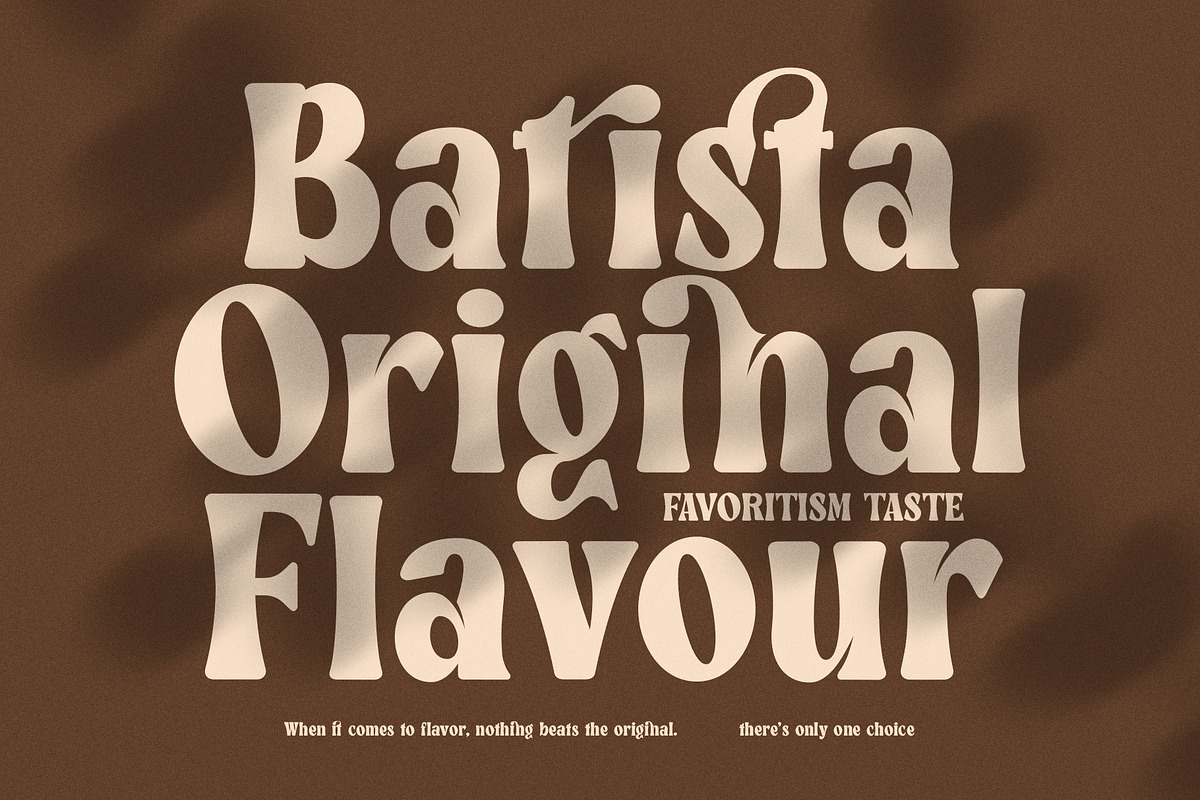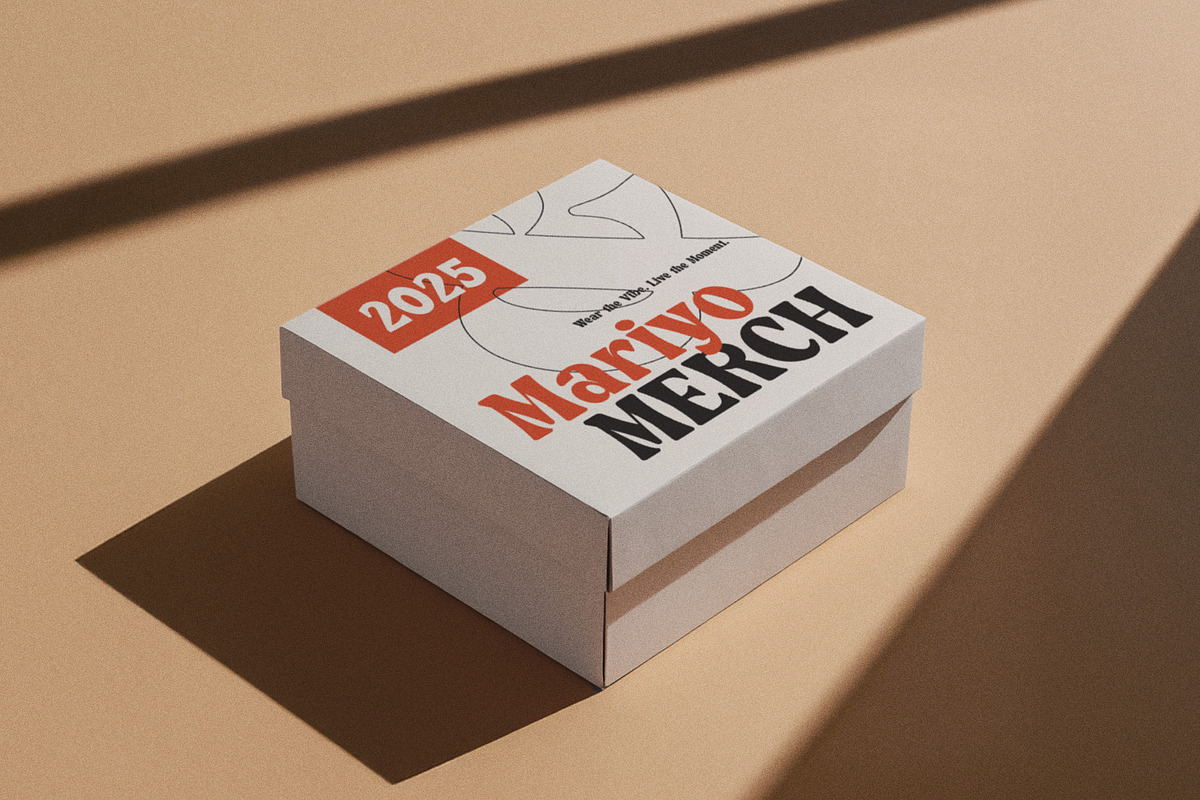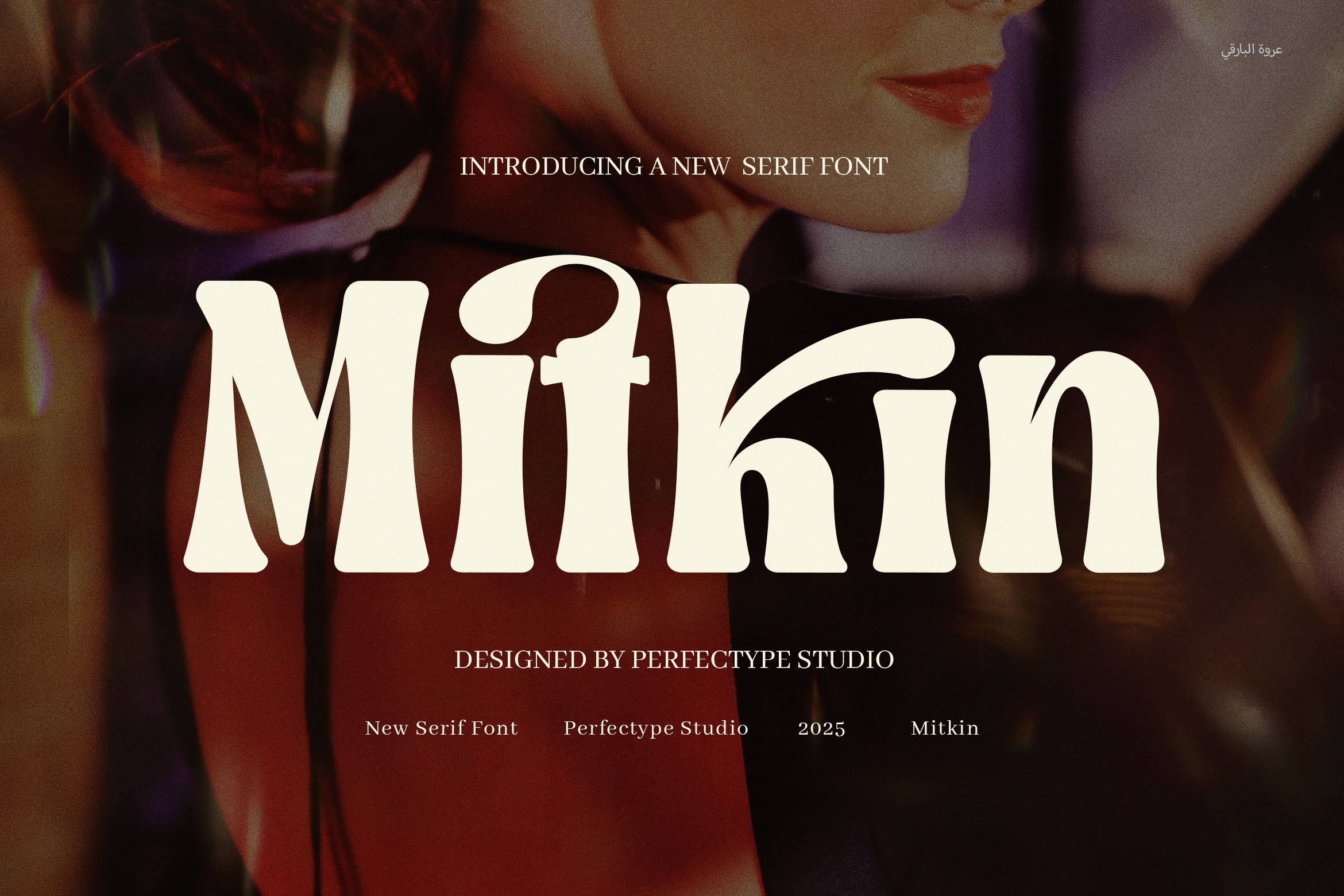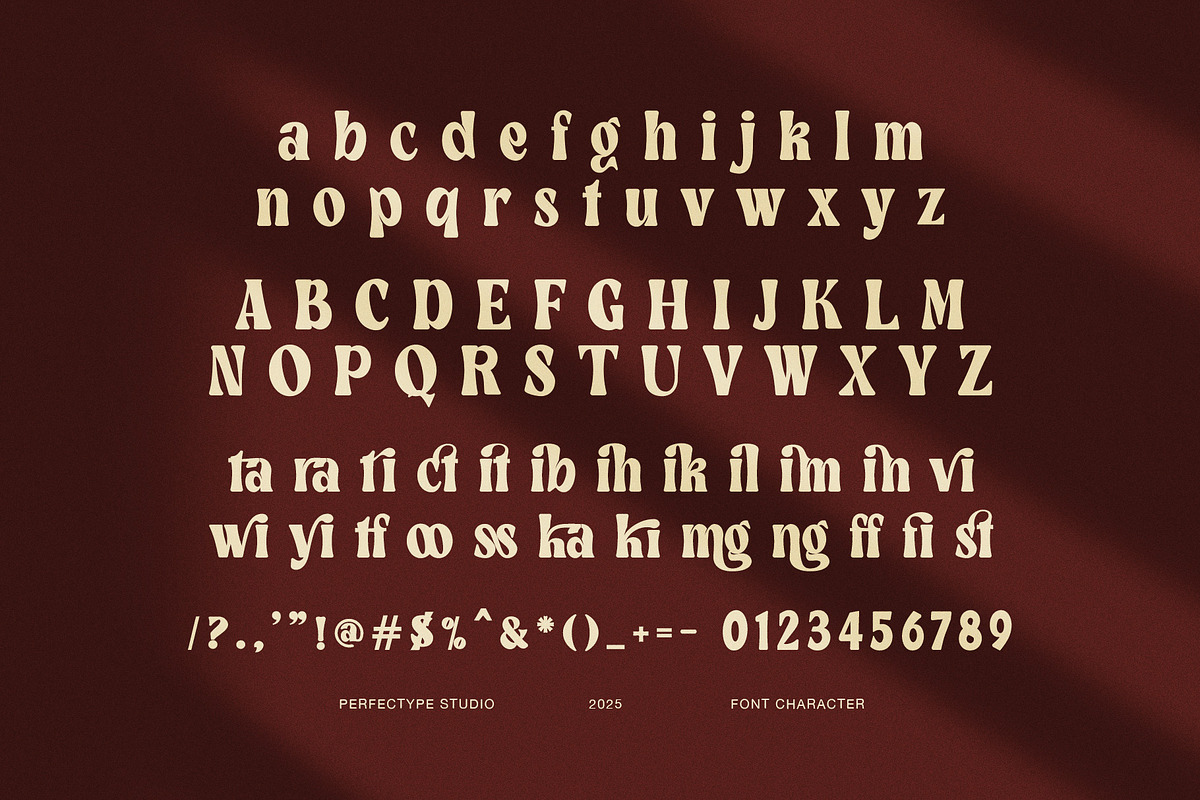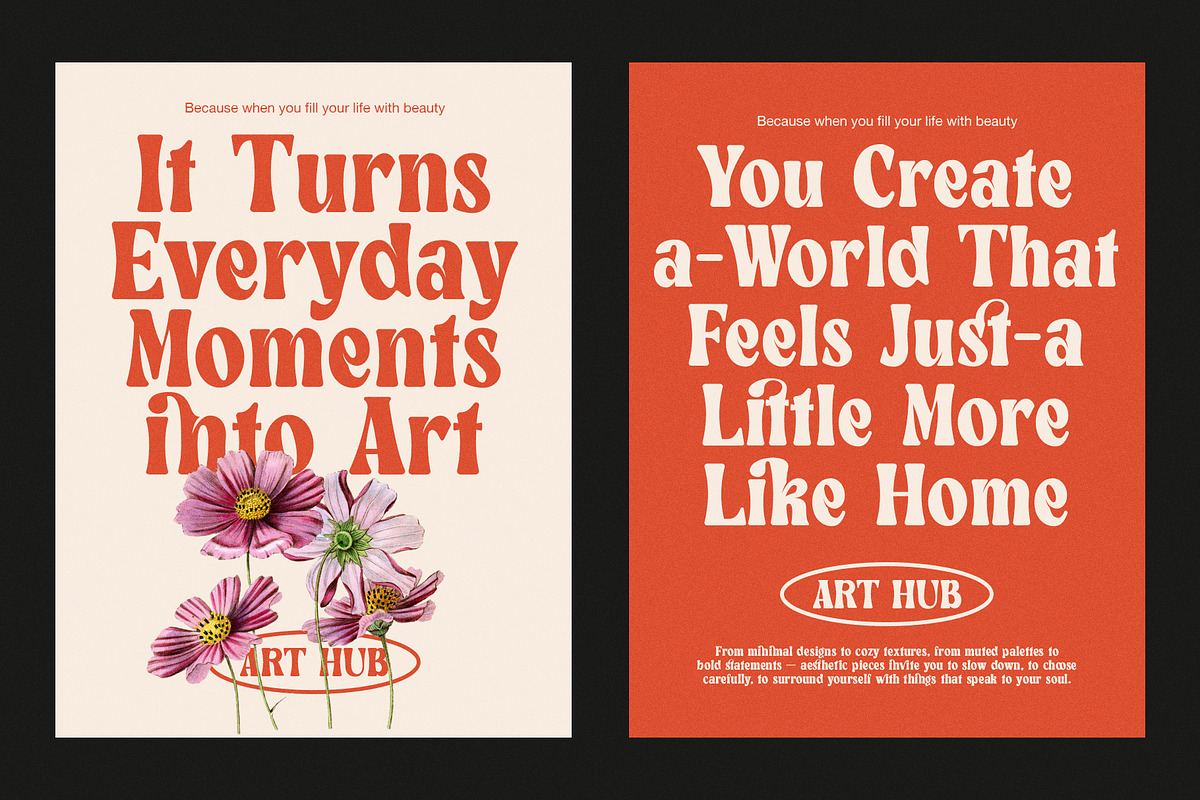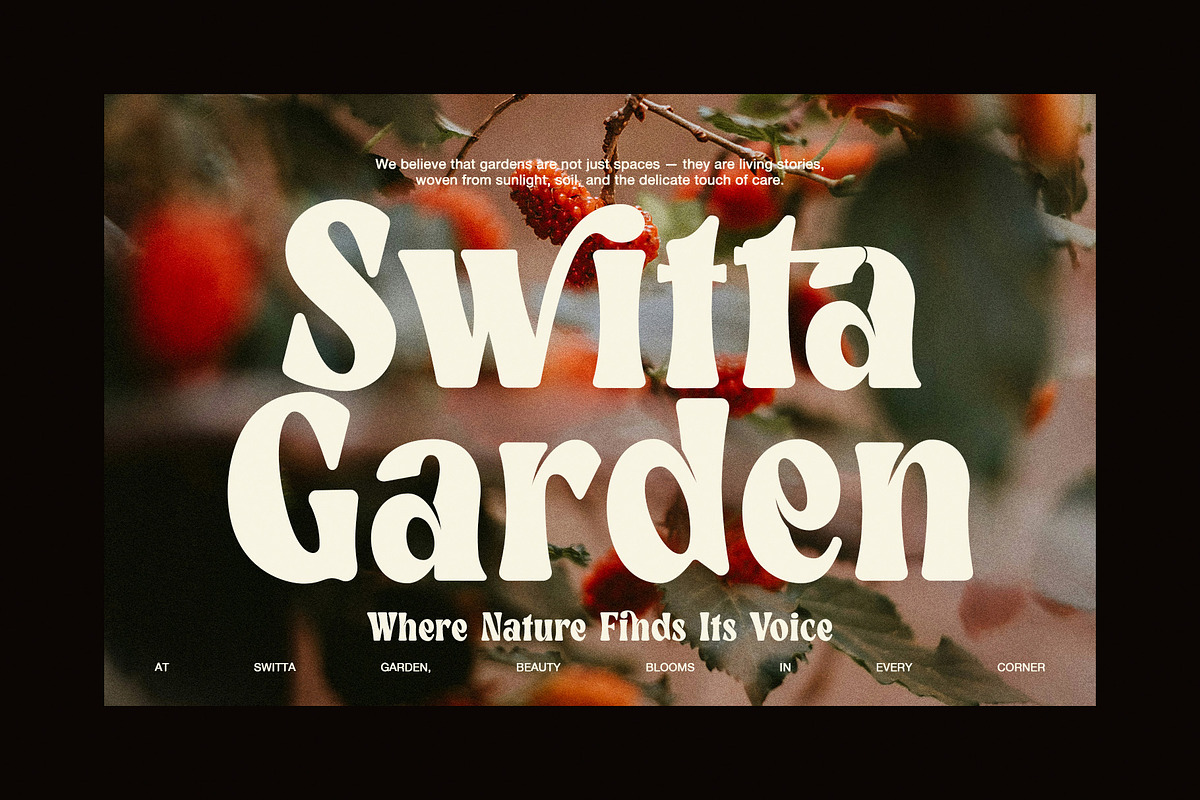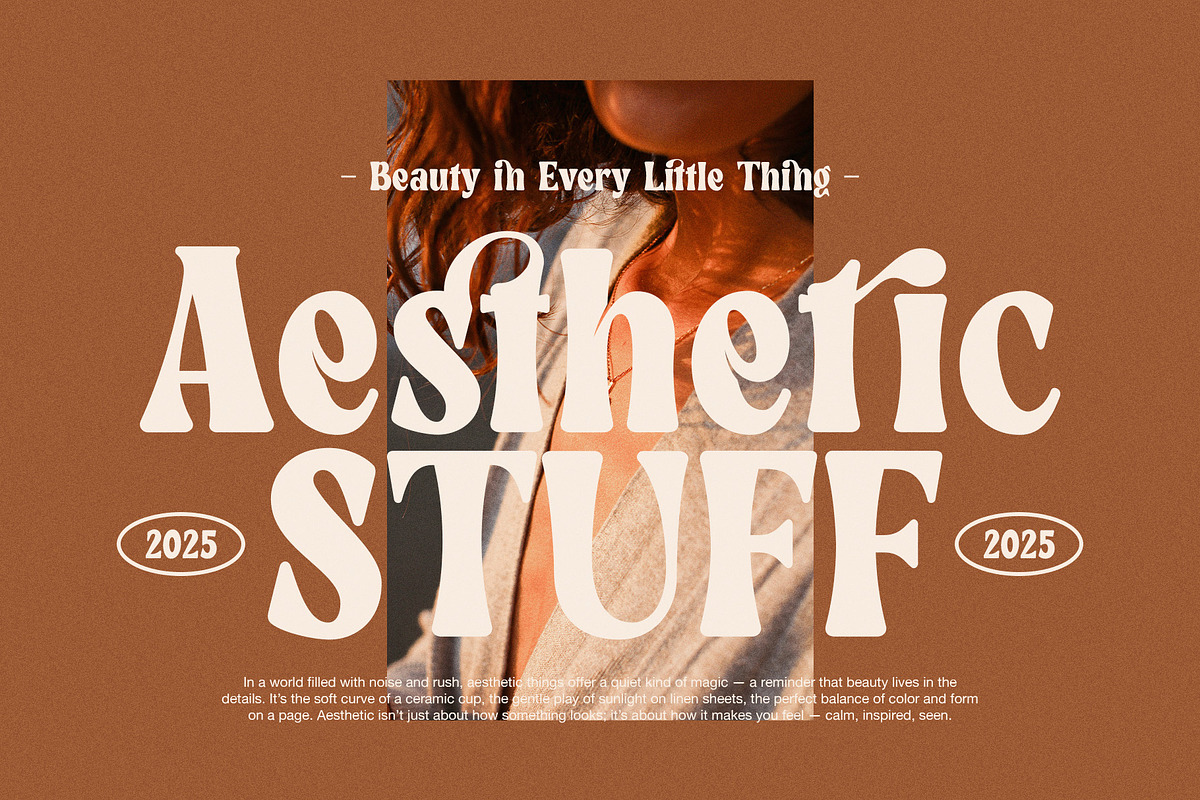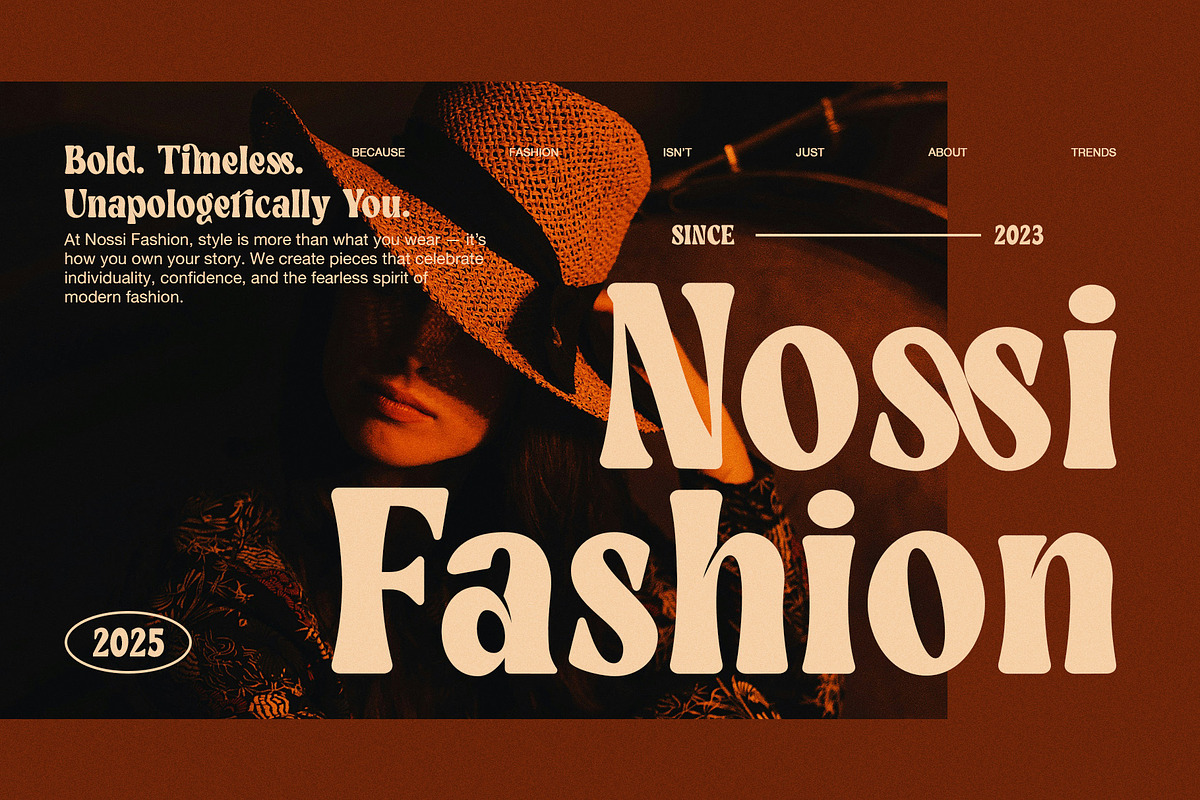
Mitkin Ligature Serif Font
Mitkin Ligature Serif Font is a modern serif typeface that embodies sophistication, creativity, and timeless style. Designed with unique ligatures and stylish alternate characters, Mitkin delivers an elevated typographic experience perfect for designers looking to make a bold, elegant impression.
With its refined letterforms and graceful transitions, Mitkin seamlessly blends classic serif charm with contemporary flair. Each character is thoughtfully crafted, offering distinctive shapes and beautifully balanced proportions that create visual harmony across headlines, branding, and editorial layouts. The elegant ligatures serve both function and form—adding natural flow and individuality to every composition.
Mitkin thrives in premium design environments where sophistication and personality are key. Whether you're building a high-end logo, designing for luxury fashion brands, or crafting striking magazine spreads, this font adapts effortlessly. It’s particularly suited for boutique branding, upscale product packaging, chic advertising, and minimalist website headers that demand attention with subtle finesse.
The alternate glyphs give you creative flexibility, allowing you to customize titles, create standout wordmarks, or add artistic flair to social media visuals. This makes Mitkin a favorite among art directors, creative entrepreneurs, and modern typographers who appreciate the beauty of expressive serif fonts.
More than just a typeface, Mitkin is a design tool that enhances storytelling through elegant typography. From upscale cosmetics and artisanal food packaging to lifestyle blogs and fashion lookbooks, Mitkin brings a polished, editorial feel to any medium.